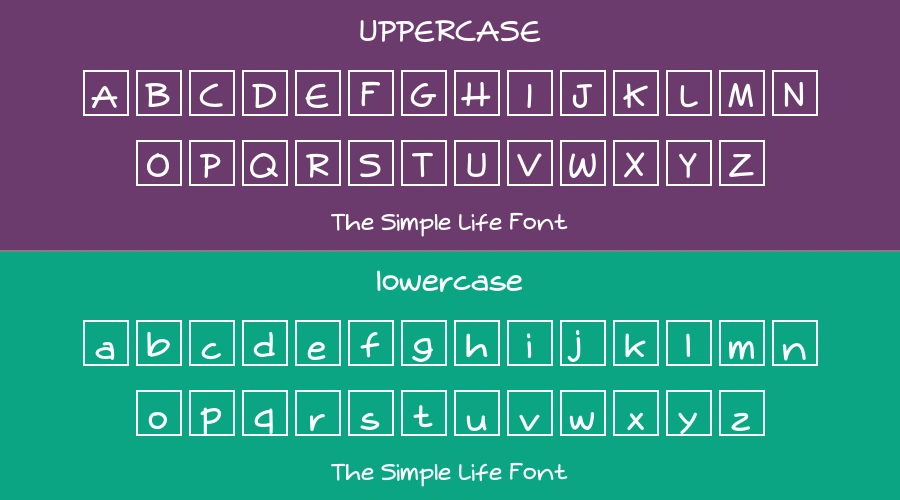
About The Simple Life Font
The Simple Life Font represents a sophisticated approach to type design, balancing elegant curves with personality. Perfect for engineering drawings, this font family showcases impressive durability and market confidence throughout its character set. Designers appreciate its versatility and reliability.
Designers will appreciate nuanced touches including high x-height and technical characters, adding sophistication to any project. These features become apparent in running text, where scanning accuracy matters most. The careful treatment of tail length and character ensures optimal performance.